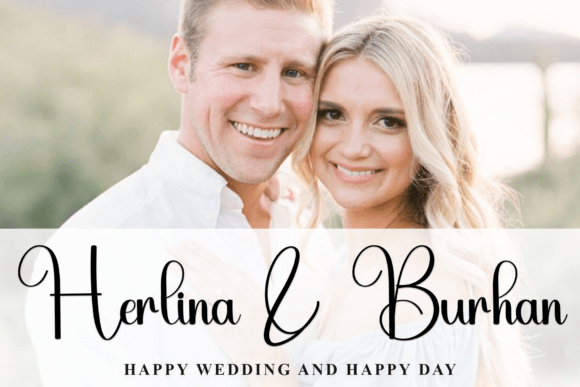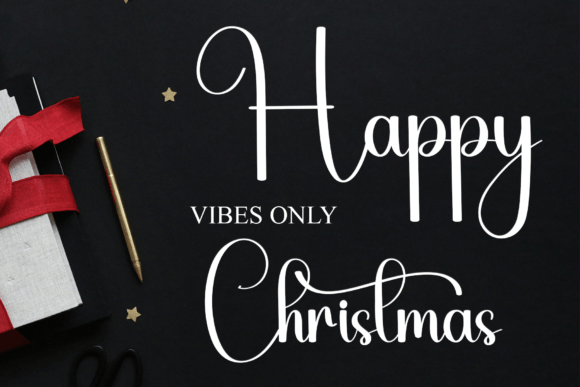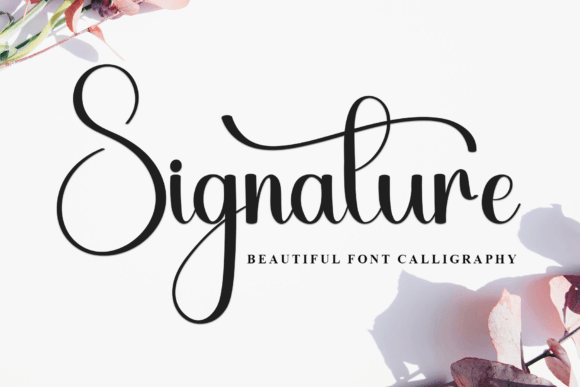
Introduction to Beautiful Handmade Font
Beautiful Handmade is an exquisite handwritten font, masterfully designed to become a true favorite.
Key Features of Beautiful Handmade Font
Why Choose Beautiful Handmade Font?
Beautiful Handmade Font offers exceptional quality and versatility, making it a valuable addition to your design toolkit. Whether you’re creating for personal projects or commercial use, Beautiful Handmade Font delivers professional results.